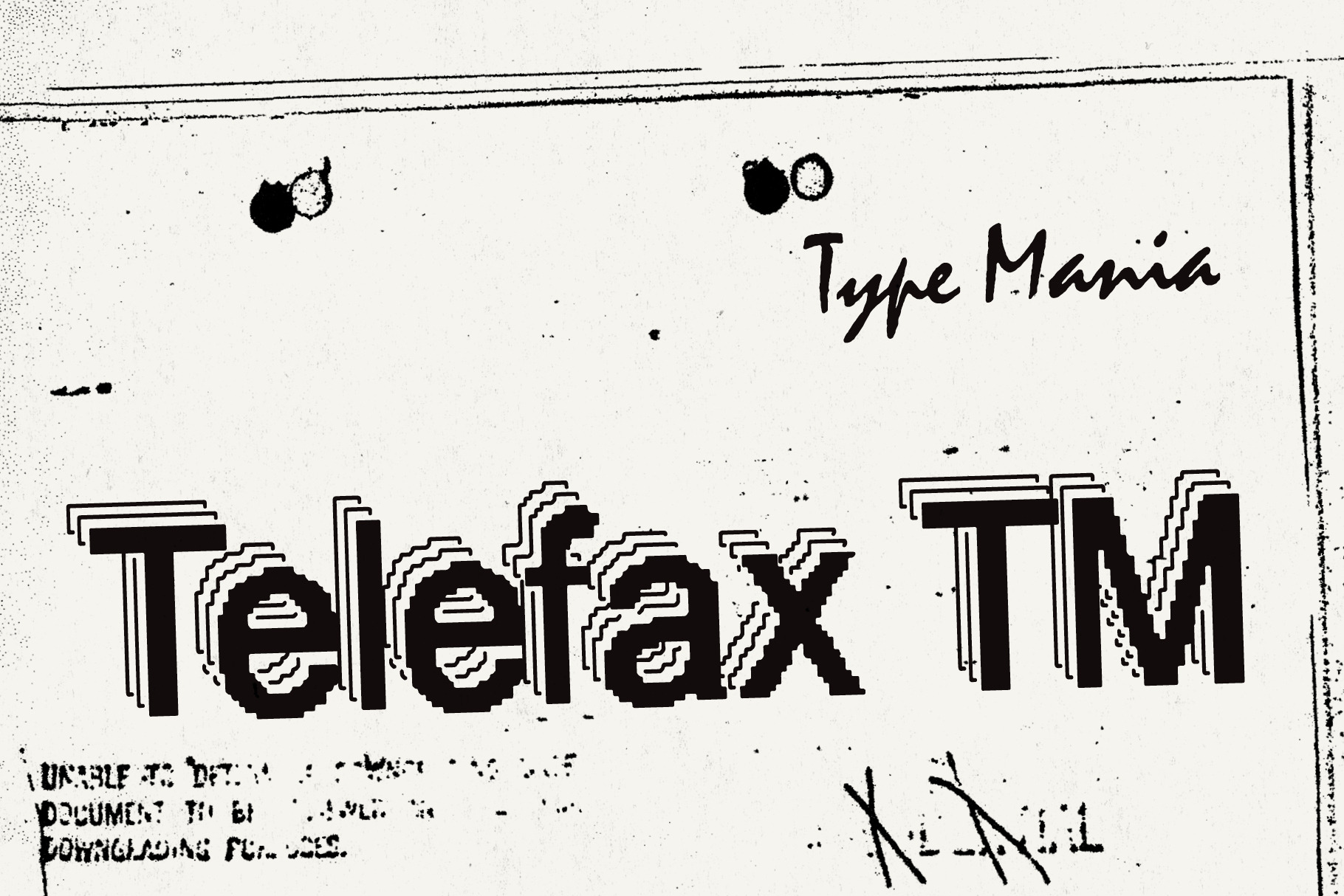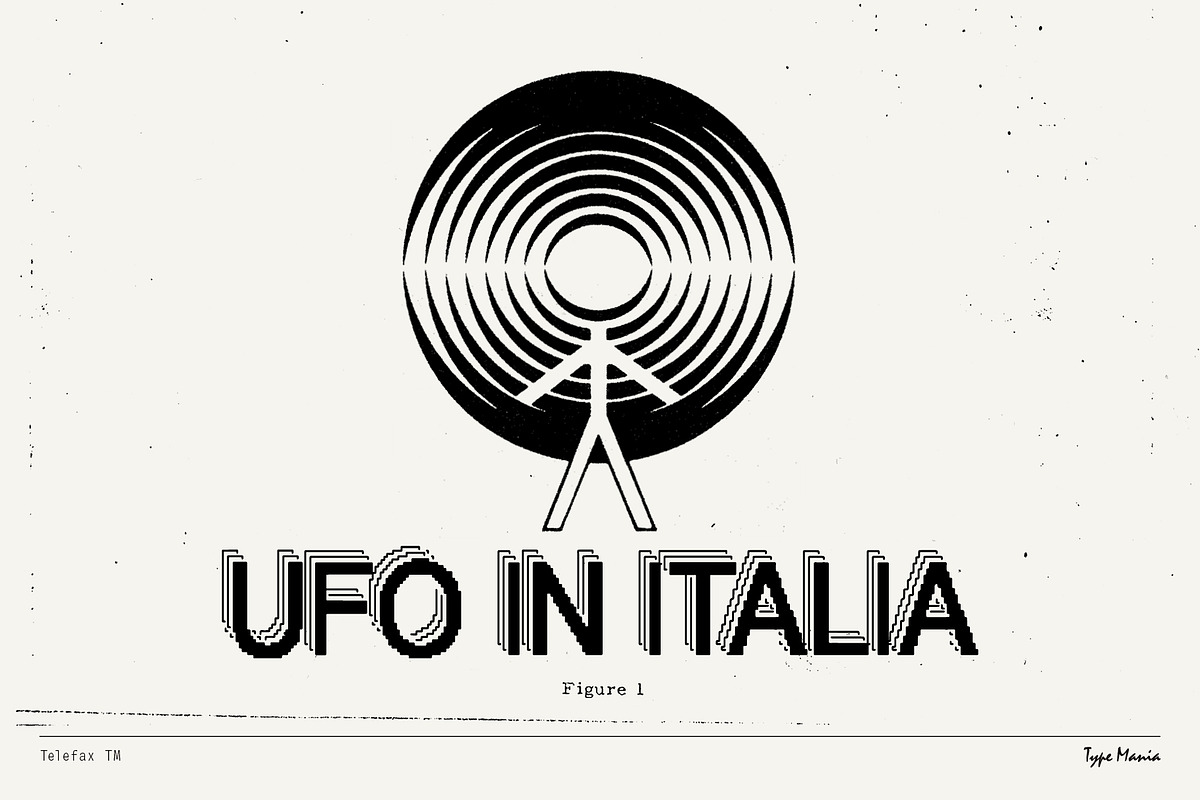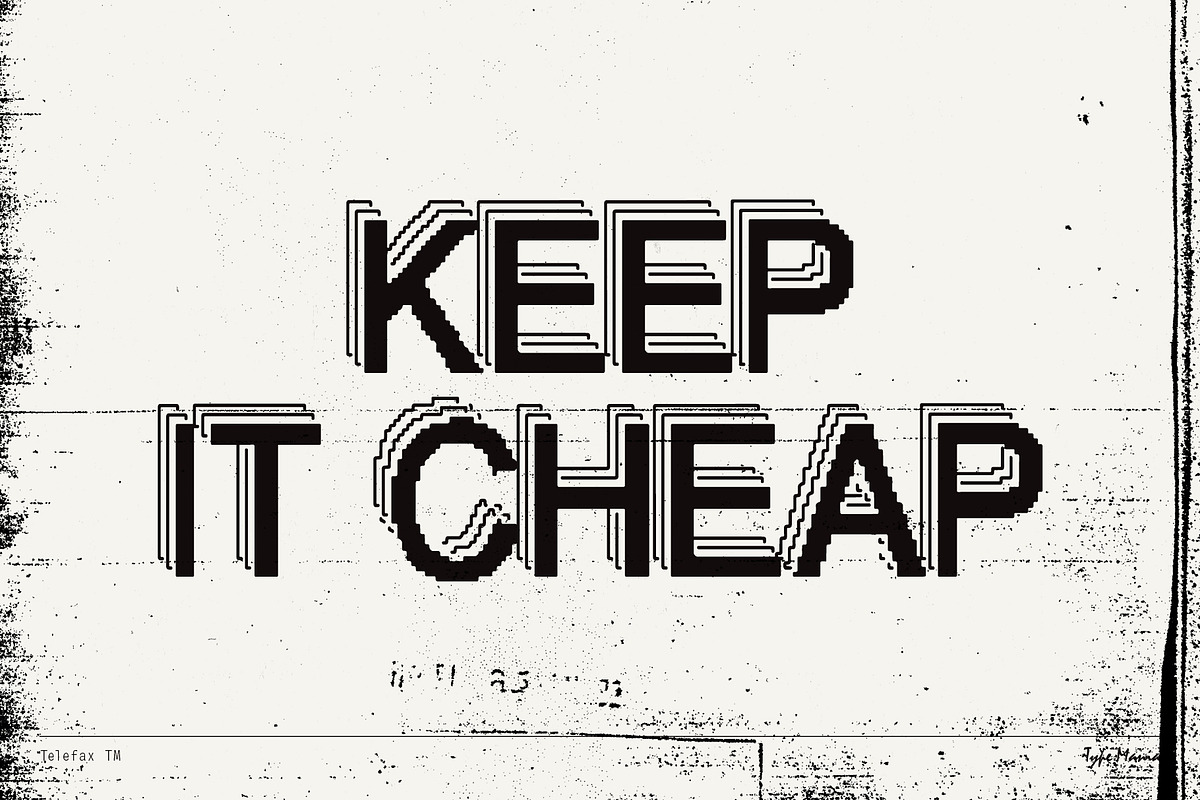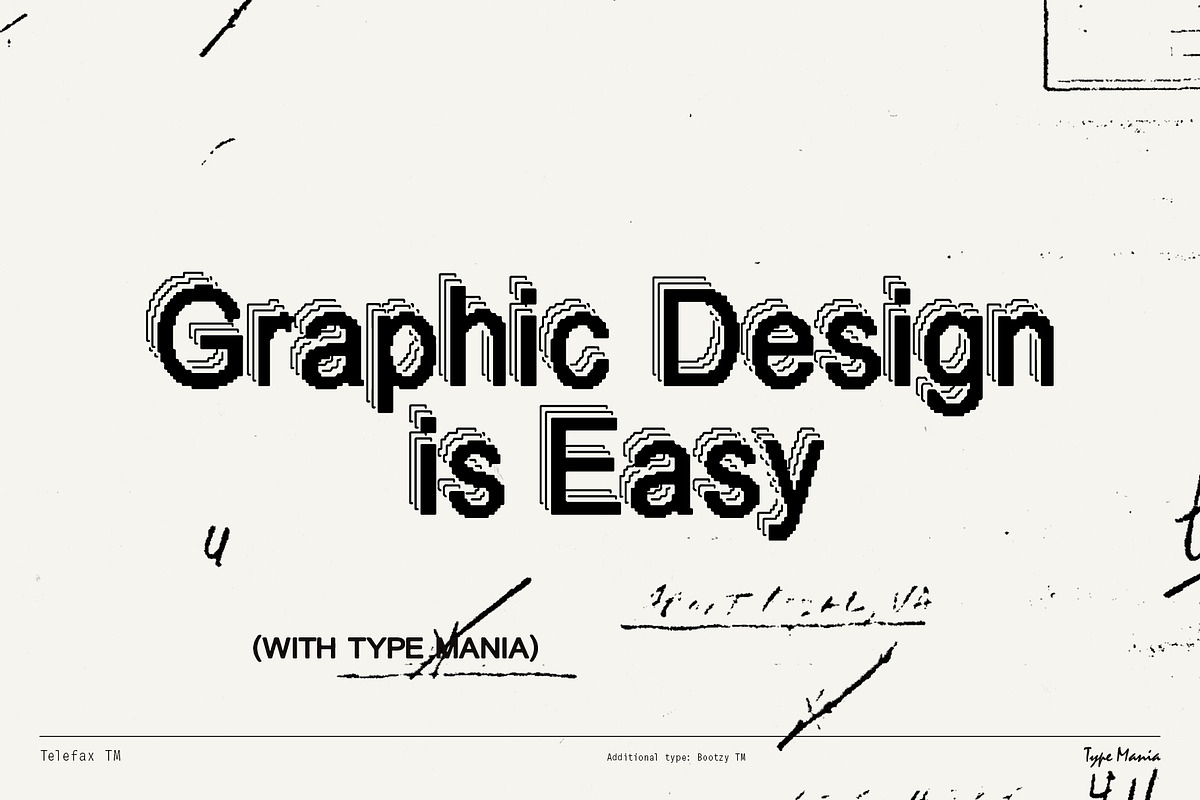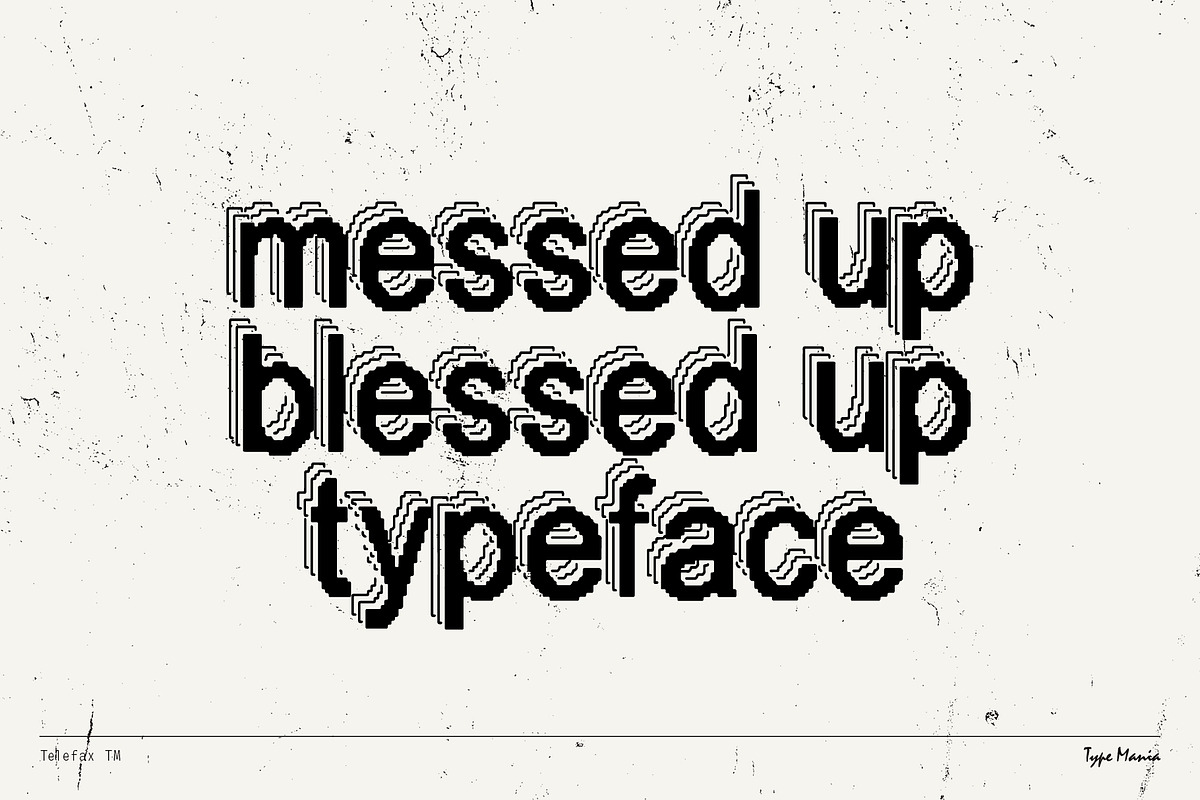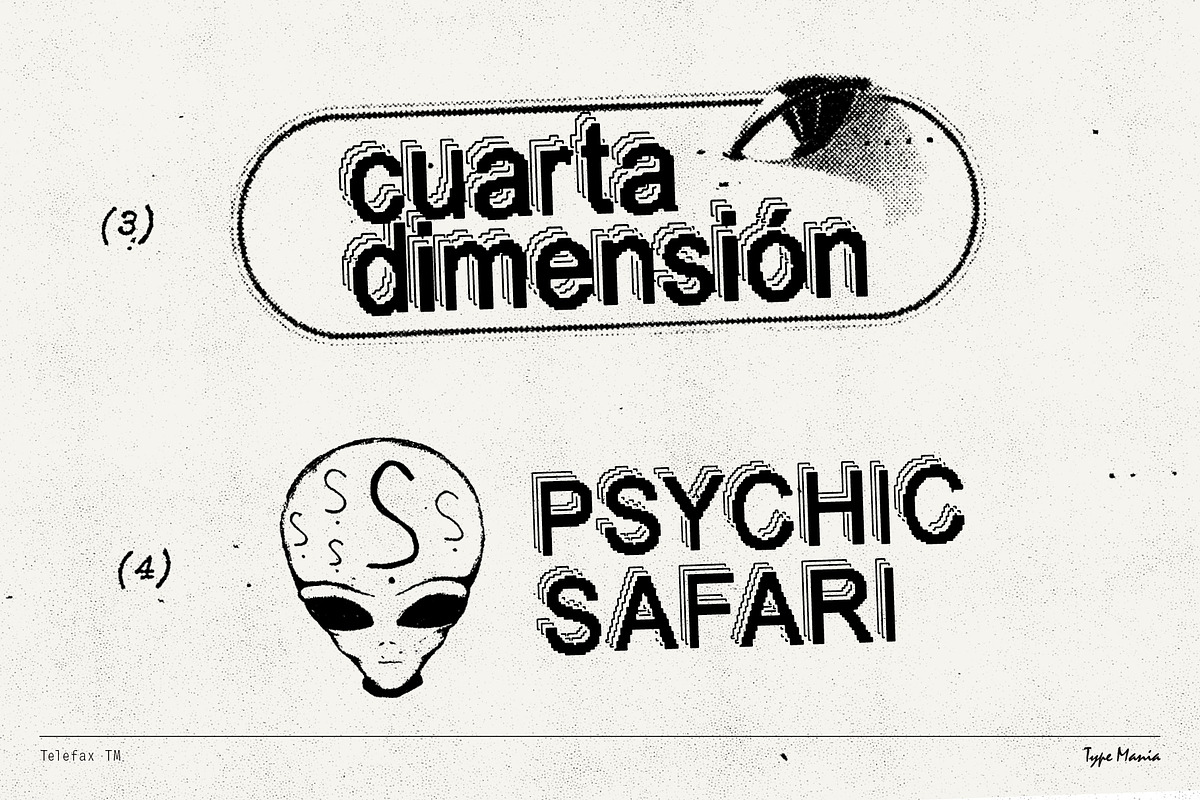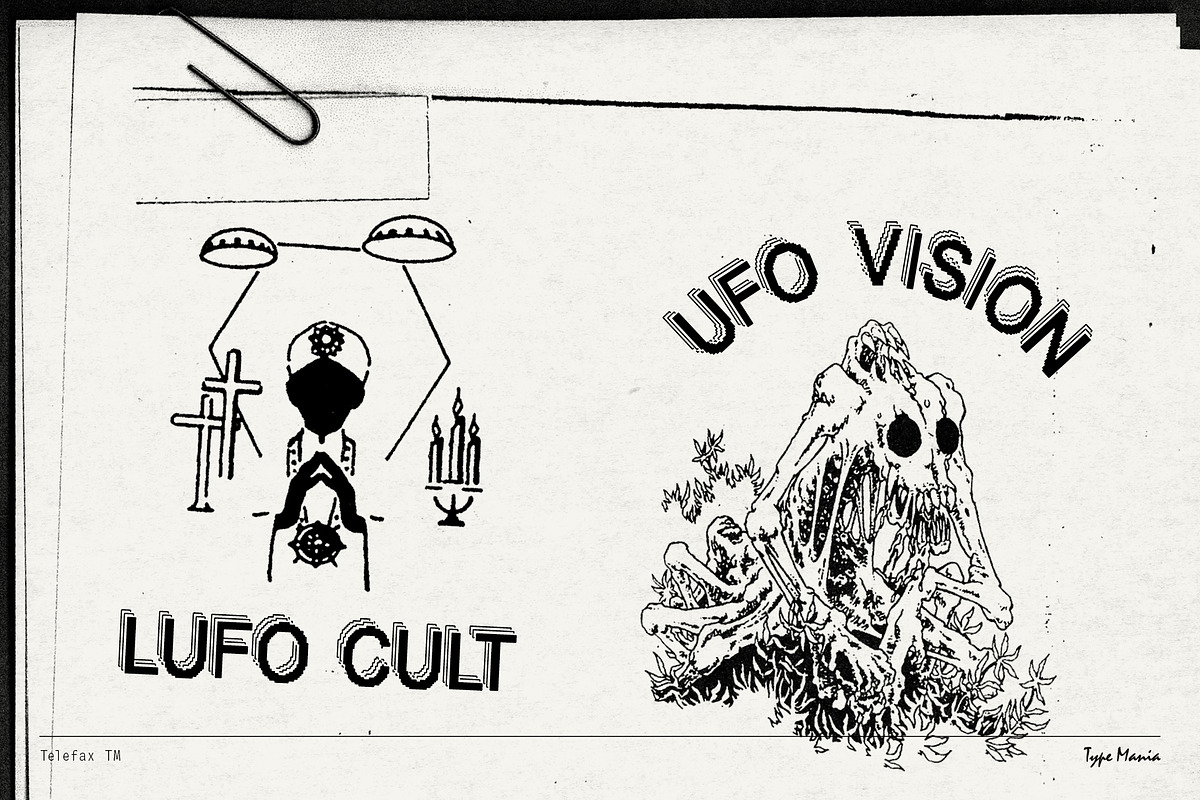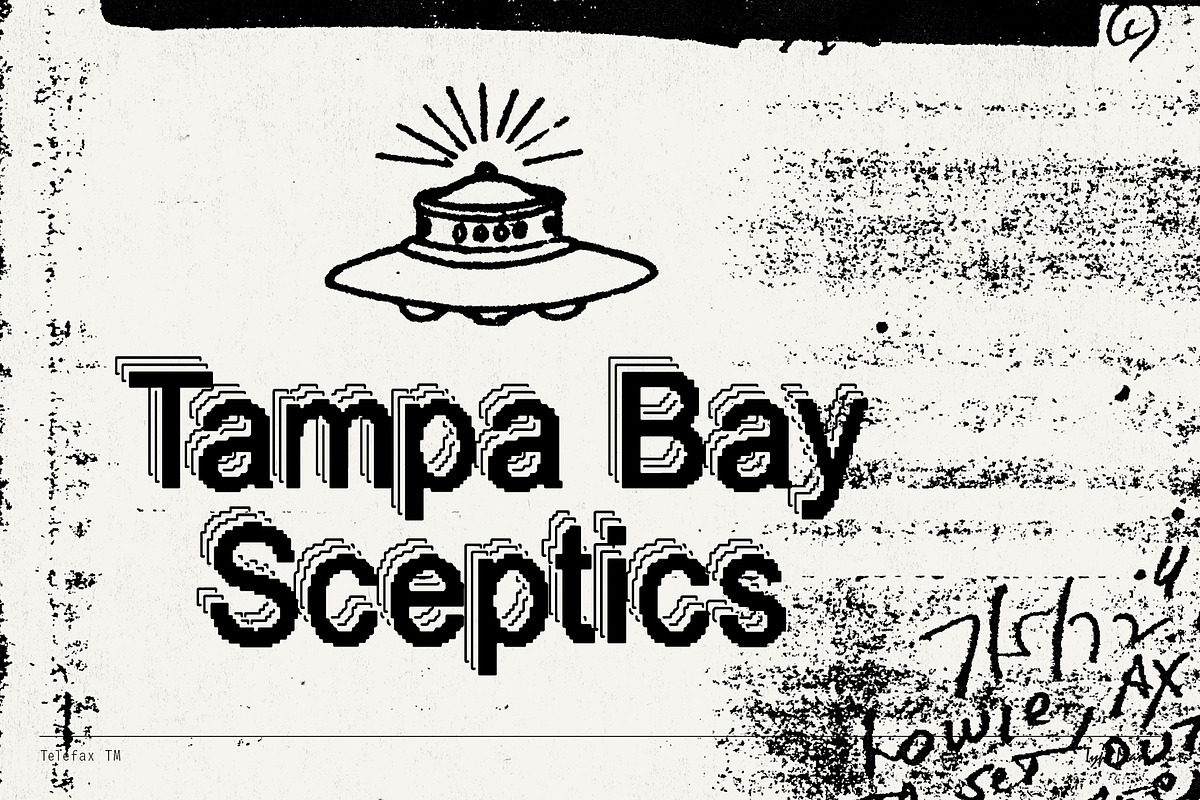
Telefax TM – Eroded Fax Typeface
Introducing Telefax TM, our cheap and cheerful distressed typeface inspired by the high-tech of yesteryears. Perfect for injecting your designs with a touch of nostalgic charm from vintage communication, Telefax TM is ideal for posters, flyers, social media graphics, and more.